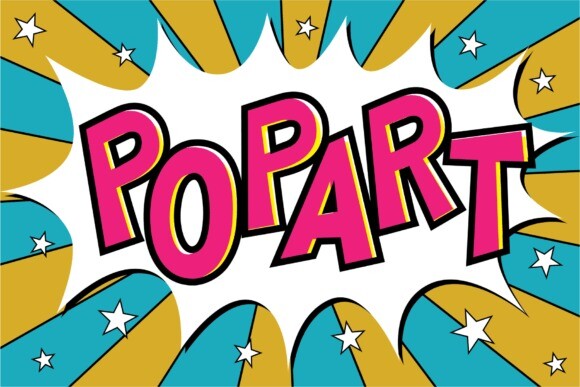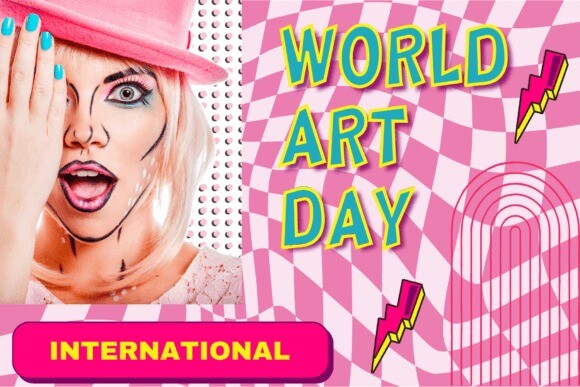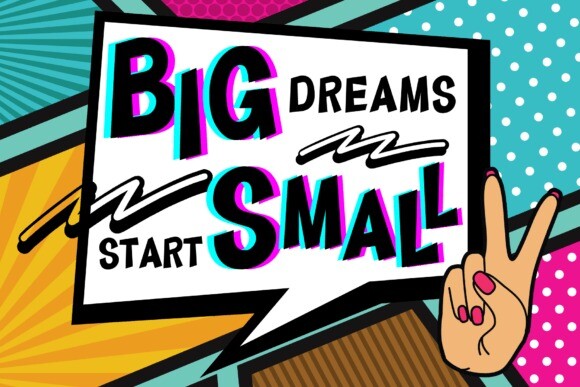
Pop Art Font
Pop Art is a cool and playful display font that evokes the bold and colorful style of 1960s pop art. Its chunky and stylized letters feature bright colors and unique shapes, making it perfect for creating eye-catching titles and headlines for posters, album covers, and other pop art-inspired designs. The font’s retro and energetic personality is sure to make a statement.